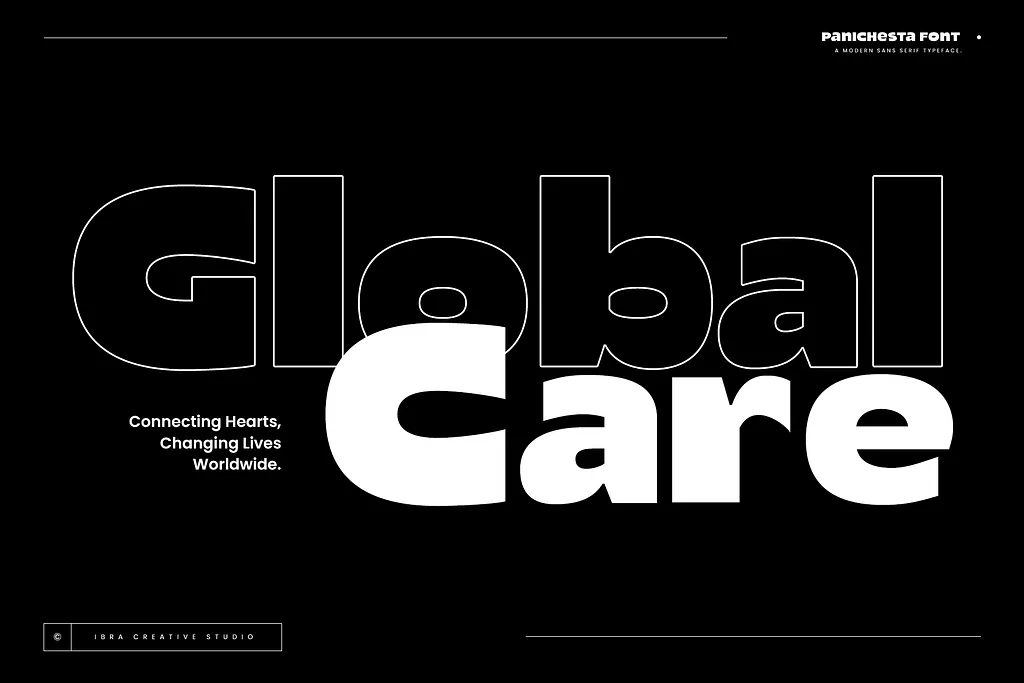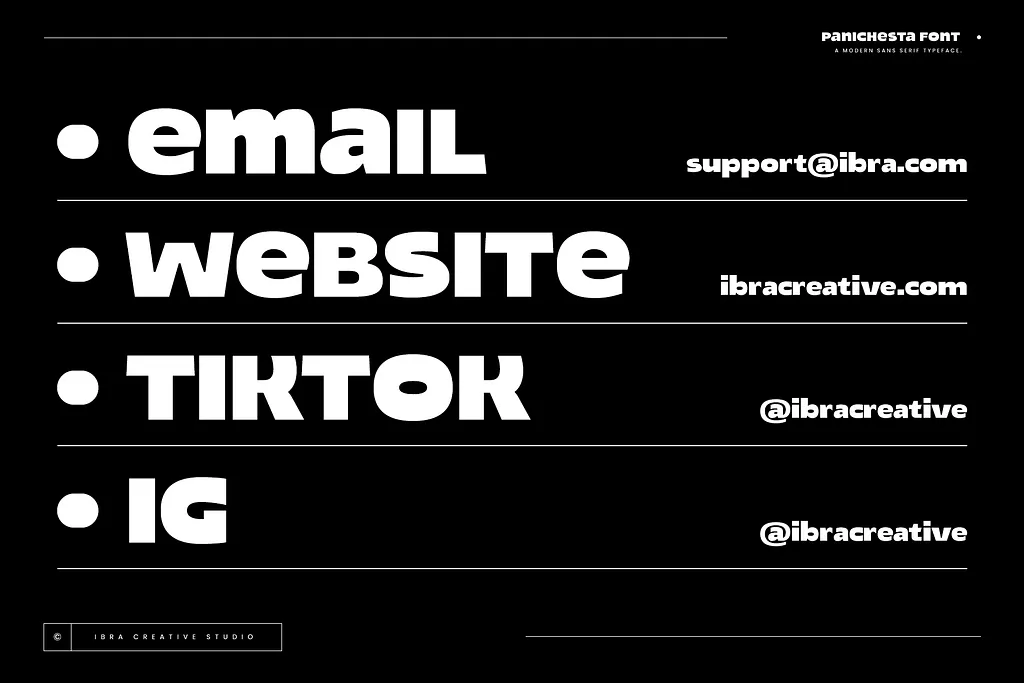
Panichesta is a contemporary sans serif font that skillfully blends modern design elements with a sense of timeless simplicity. With its clean and refined aesthetic, Panichesta offers a stylish yet professional look that suits a wide range of design projects. Whether you’re creating branding materials, website headers, or promotional graphics, this font provides a strong visual presence without being overwhelming.
One of Panichesta’s standout features is its bold fonts, which add a confident and striking touch to any layout. These weightier styles are perfect for headlines, logos, or any text that needs to stand out. The bold characters retain the font’s overall elegance and readability, making them both eye-catching and practical in use.
Thanks to its sleek and minimalist appearance, Panichesta works beautifully in both digital and print environments. Its versatility makes it a reliable choice for designers seeking a modern sans-serif that can adapt to various styles while retaining a clean and polished feel.